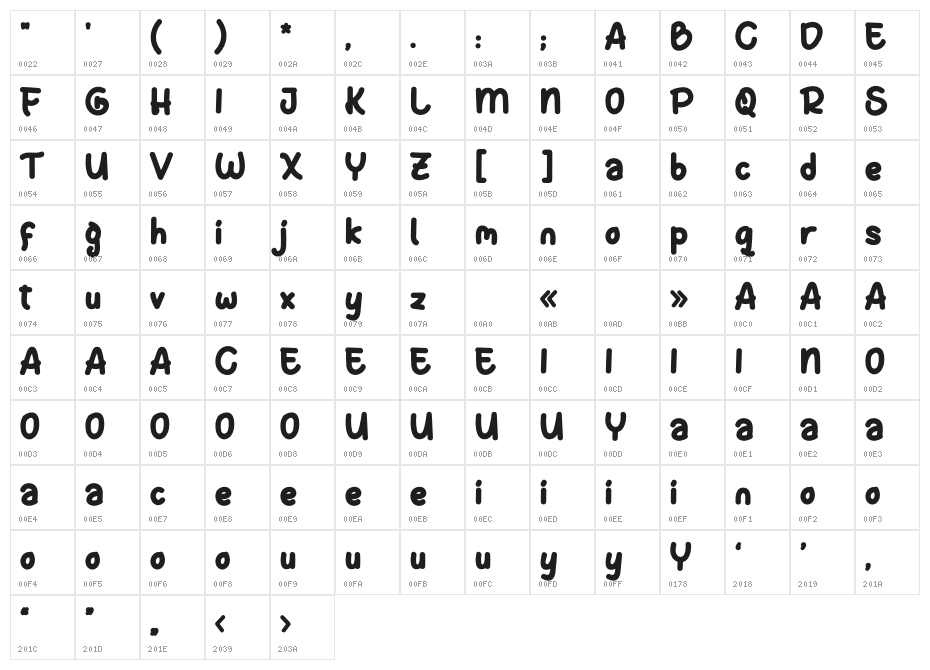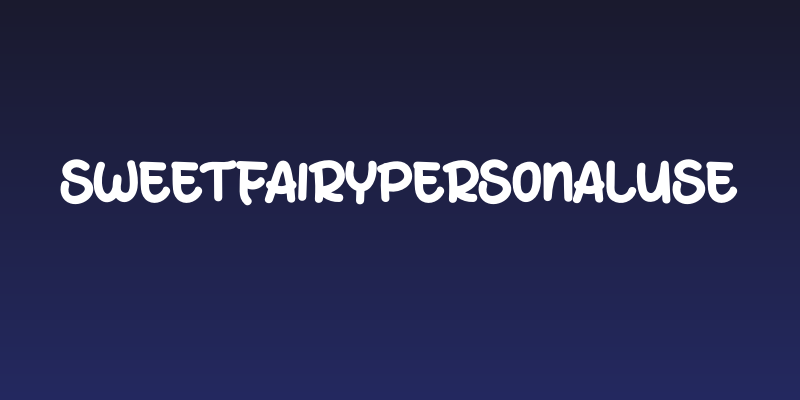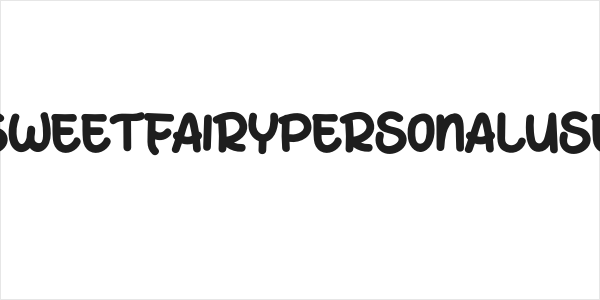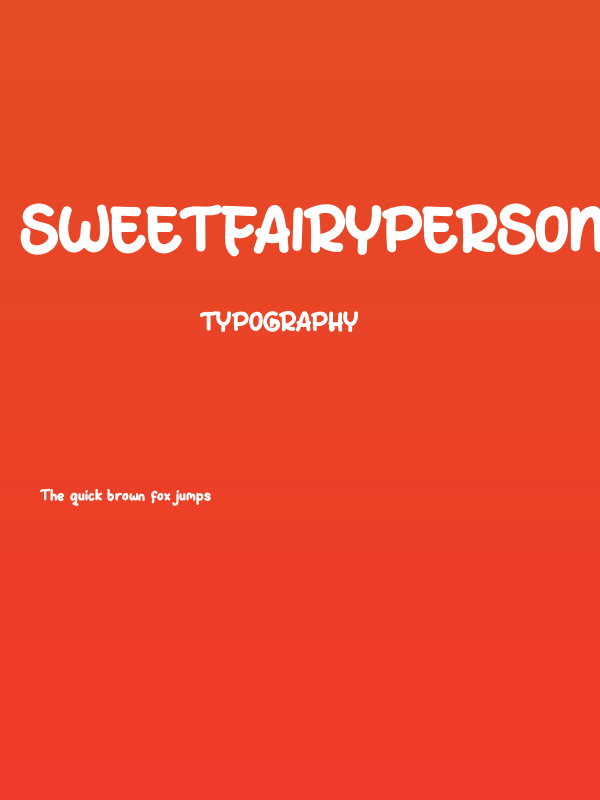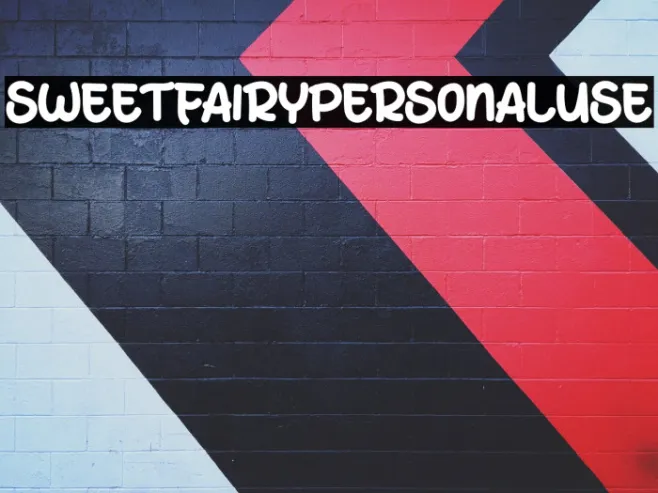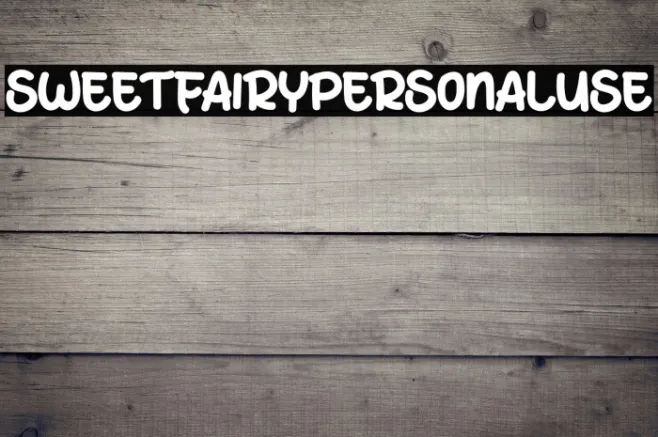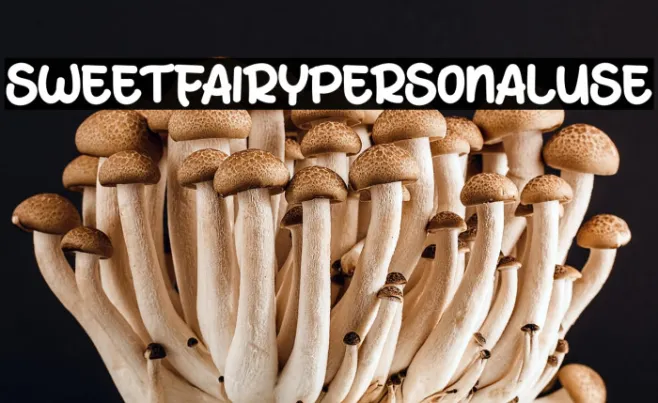
SWEETFAIRYPERSONALUSE Font
SWEETFAIRYPERSONALUSE Description
This playful and whimsical font features bold, rounded characters with a hand-drawn aesthetic. The uppercase and lowercase letters are consistent in their bubbly appearance, giving a sense of fun and creativity. The font's strokes are thick and uniform, contributing to its bold presence. The overall style is casual and friendly, making it suitable for projects that aim to convey a lighthearted and approachable tone. The characters are well-spaced, ensuring readability while maintaining a cohesive look. This font is ideal for designs that require a touch of personality and charm.
| Proposed Projects | Ideal for children's books, playful branding, greeting cards, and creative posters. |